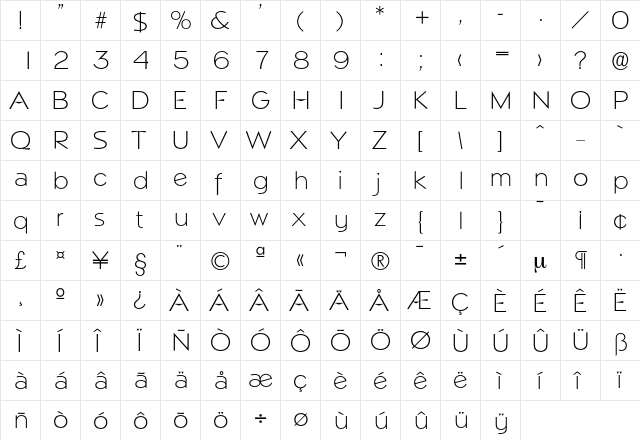
Napoli-Xlight Regular
Design Context for Napoli-Xlight Typeface
Napoli-Xlight takes a measured approach to typography — its balanced proportions and neutral character make it a reliable workhorse for both digital and print work. The delicate stroke weight brings airiness and refinement to layouts.